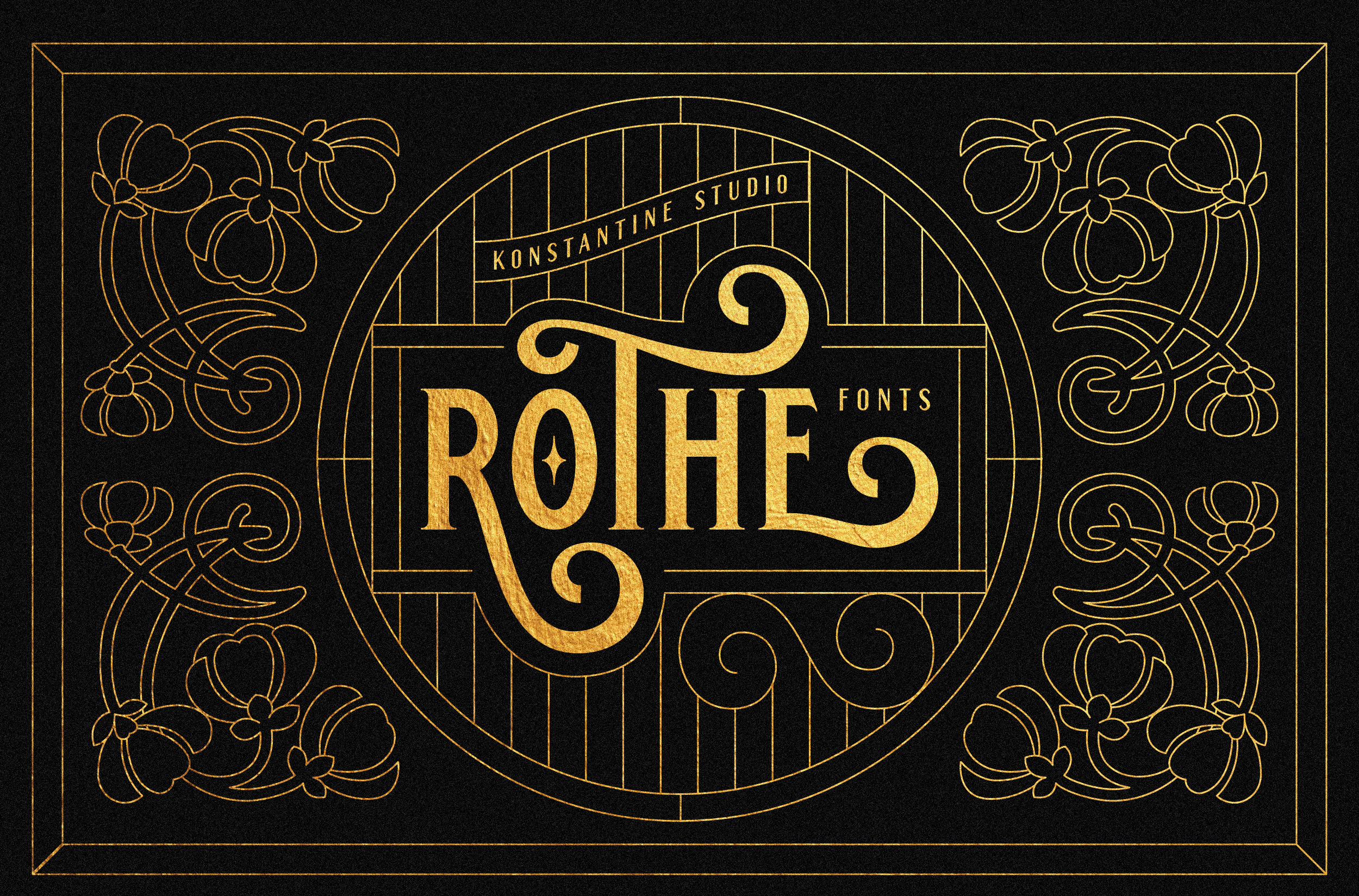
ROTHE - Vintage Luxury Font
ROTHE, A luxury vintage lettering style fonts. Inspired by the branding from the vintage classic era with the full decorative feels and complex design but still get the luxury feels right away.
Included Uppercase, Lowercase, Numbers & Punctuations, Multilanguage Support, Alternates for the Uppercase with swashes and outlined version, and decorative elements in font file as well.
- Rothe Standard
- Rothe Outlined
- Rothe Elements Standard
- Rothe Elements Outlined
Not easy....the flourishes are not at all like you see in the images. The Rothe Demo I found online was better.
Hello Mara, Sorry for your inconvenience. The flourishes that makes the letters turns out different from the basic ones are generated via Stylistic Alternates. So your software must support that features to brings out the alternate letters in Rothe font. And the flourishes ornaments that came out separately as another font file, it supposed to be an accesories or decorative to compose in your whole design using Rothe font. All of the display previews in Rothe fonts are using the same elements as well. Thank you for your interest to our fonts, and again, we're sorry for this inconvenience. Warm regards, Abdilah